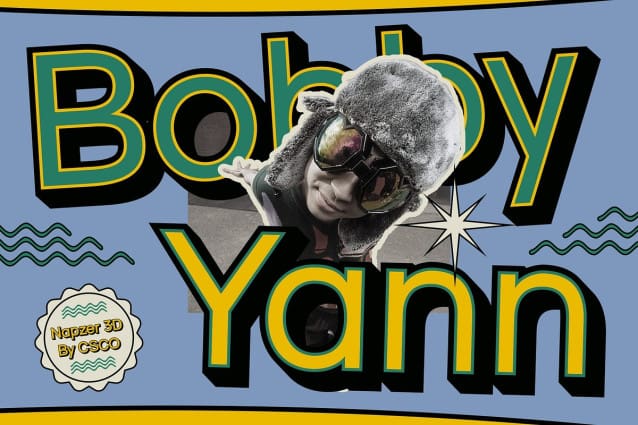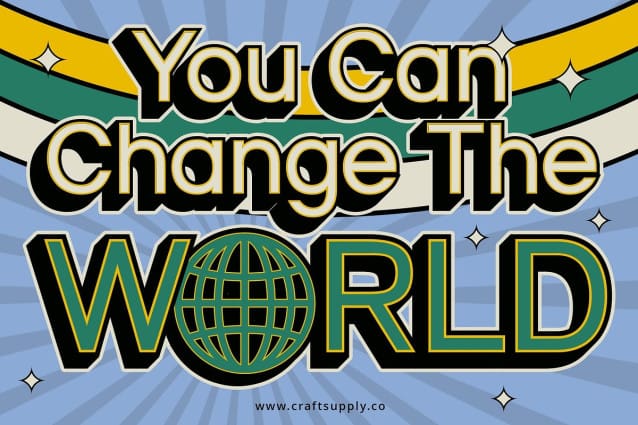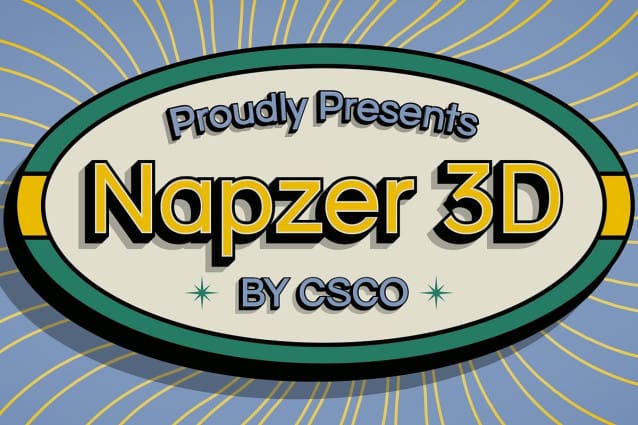
Napzer 3D Font
Napzer 3D Font: Elevating Geometric Sans Serif. Dynamic Geometric Design Napzer 3D presents a striking sans serif typeface characterized by geometric shapes. Its clean lines and precise angles create a modern and dynamic aesthetic.
Enhanced with Outline and Extrude Effects The font is enhanced with outline and extrude effects, adding depth and dimension to each character. This feature elevates this font, making it perfect for captivating display purposes.
Ideal for Display Projects Tailored for display projects, This font excels in various contexts, from branding to digital advertising. Its bold and contemporary appearance ensures maximum impact and visibility.
Versatile Application Beyond its captivating appearance, This font offers versatility in application. Whether used for website headers, posters, or product packaging, its geometric design and 3D effects make a bold statement.
Modern Geometric Display Typeface This font emerges as a versatile and eye-catching typeface suitable for a wide range of display projects. With its geometric sans serif design and enhanced 3D effects, it brings a modern edge to any design endeavor, ensuring that your message stands out effectively.